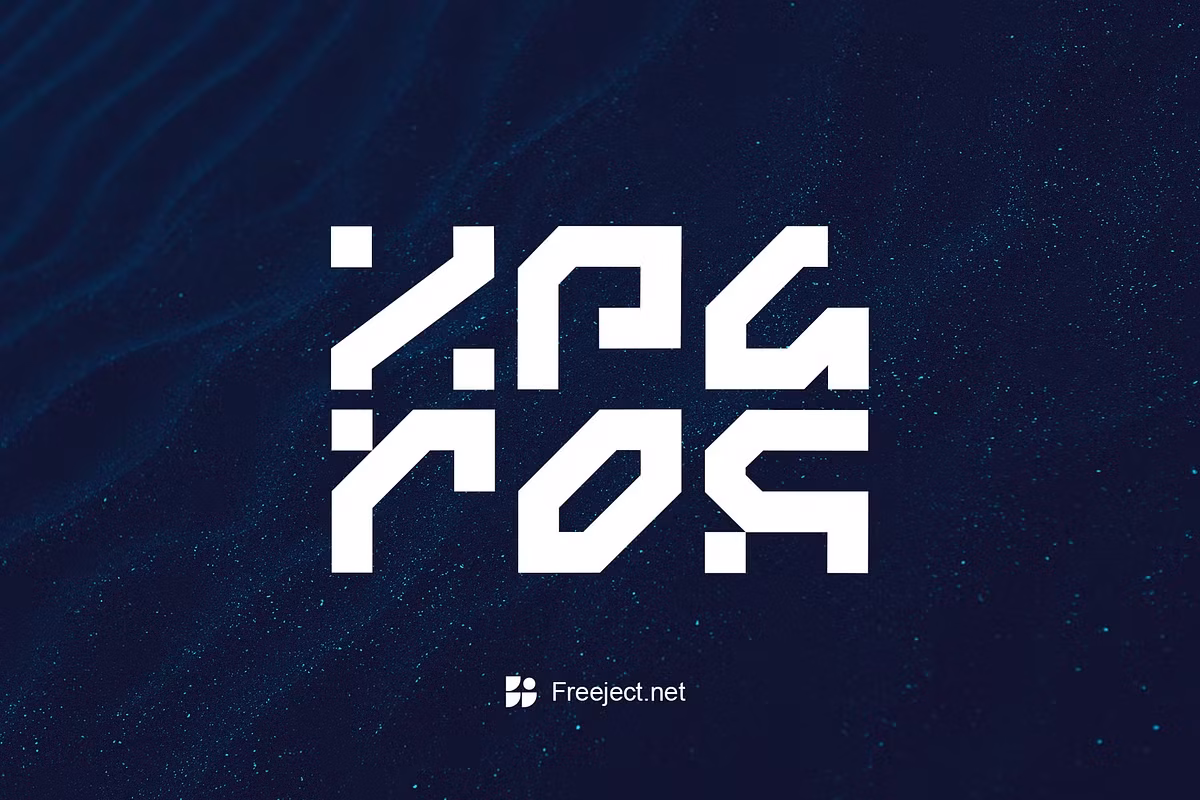
Xparos Experimental Font Free Download
Xparos Experimental Font Free Download is a bold and futuristic typeface crafted for creatives who love to push boundaries. With its abstract shapes, sharp edges, and unconventional design, Xparos is perfect for experimental art, tech branding, music visuals, and modern poster designs. It brings a distinct digital-era vibe, ideal for projects that aim to stand out and disrupt the norm.
Integrating the Xparos Experimental Font Free Download into your work adds a cutting-edge, avant-garde aesthetic. It's great for titles, logos, or typography-led compositions where style and uniqueness matter. Xparos isn't just a font—it's a design statement, built for projects that challenge visual expectations.